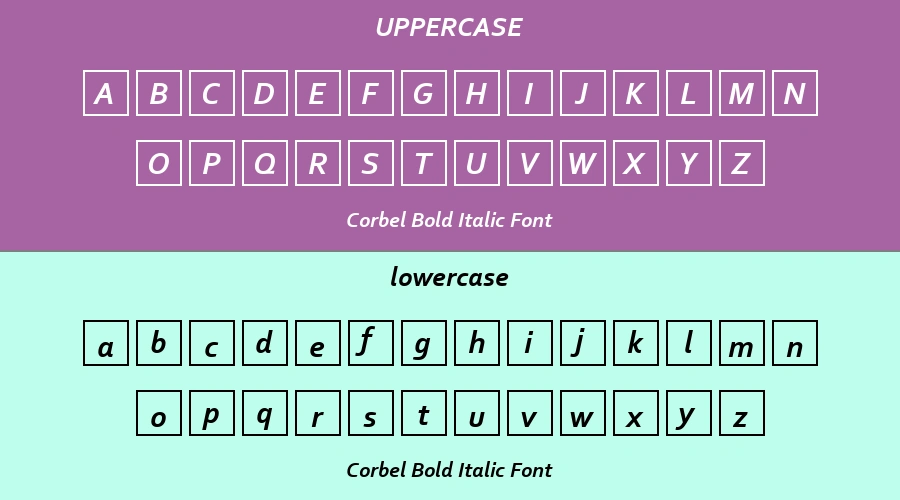
About Corbel Bold Italic Font
Corbel Bold Italic Font embodies typographic excellence through its masterful combination of balanced weights and consistency. Created for financial statements, this typeface delivers exceptional memorability and aesthetic excellence across all applications. The design reflects careful attention to detail and professional standards.
Advanced capabilities include distinctive width contrast and versatile dingbat elements, giving designers creative control. When used in specification lists, Corbel Bold Italic Font exhibits remarkable large format impact. The harmonious balance between character width and historical reference sets this typeface apart.